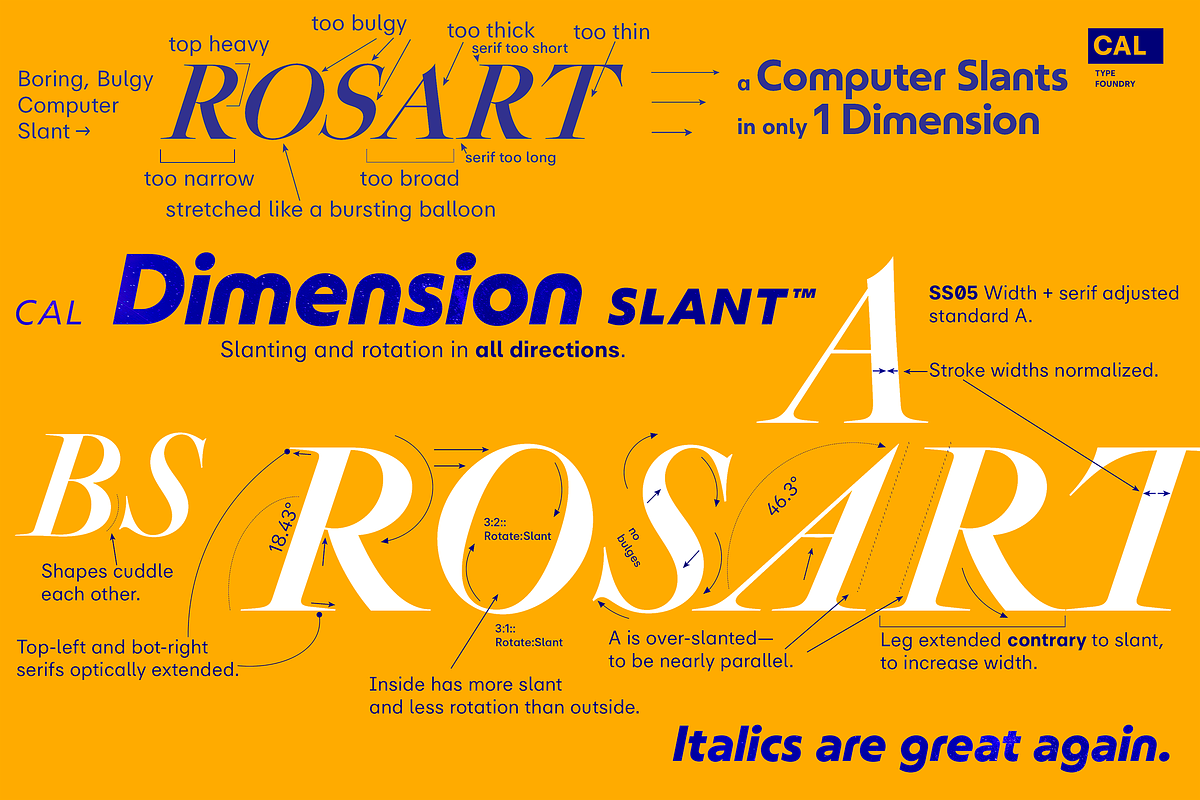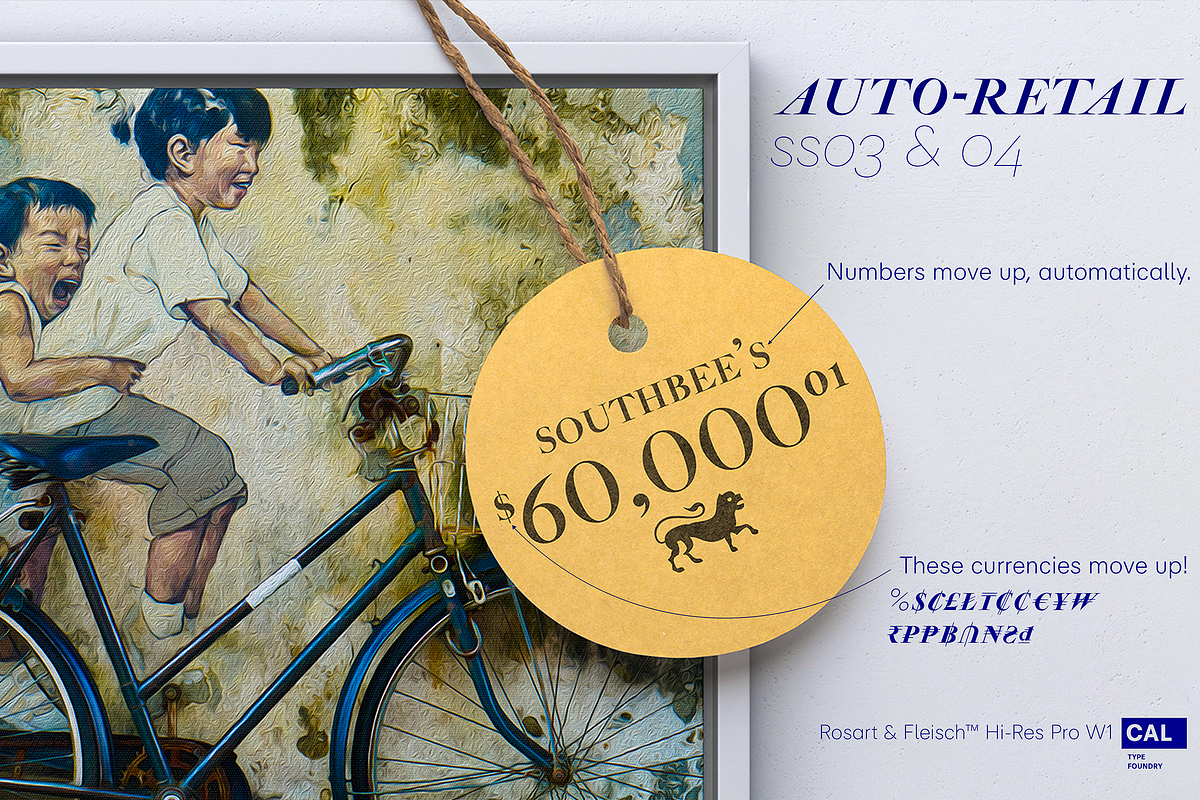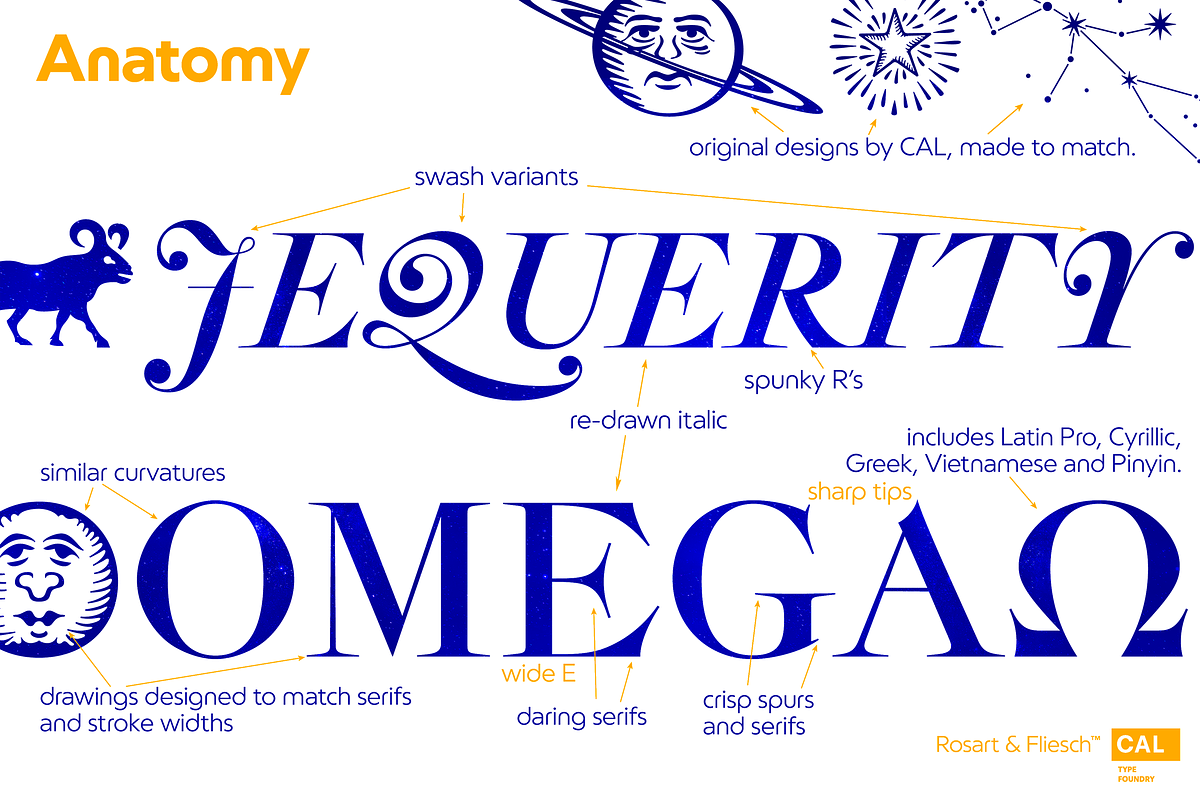
The original Titling Caps and icons of Jacque François Rosart painstakingly carved, now meticulously digitized to be a true, accurate, and complete representation of the original designs.
Latin Standard character set with support for Western European languages.
- When you type the lowercase, the small caps show.
- Includes proportional lining (default), old style numerals—Fleisch’s weight-adjusted originals—and small caps figures.
- Alternates for the U and X.
- Italic includes swash alternates.
Sourced from high resolution pictures and scans of the Enschede 1768 specimen, specimens of the 1800s, the 1908 and 1978 metal re-castings.
A display serif typeface that was used to print high class works, including Leopold Mozart's classic book on violin technique and important printings of the Bible.